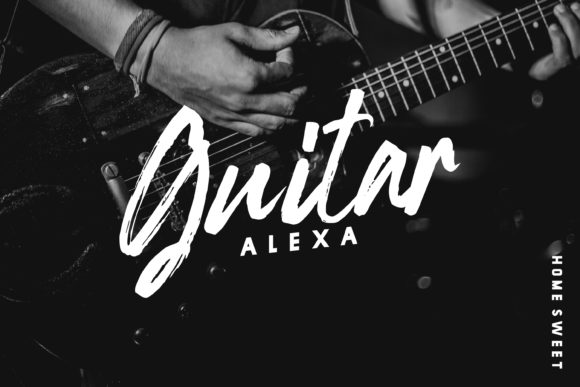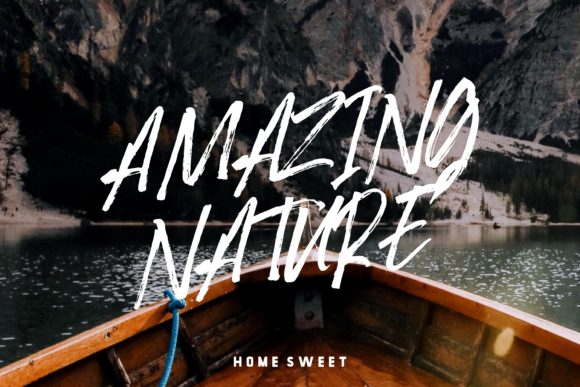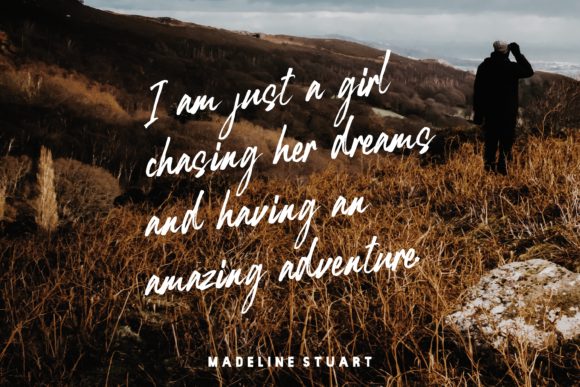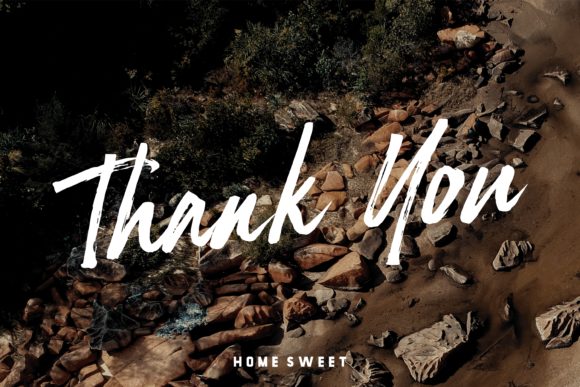
Unleash Your Creativity with the Power of Giant Brush Font
Have you ever been working on a design project and suddenly, the perfect font pops into your mind? It’s like a lightbulb moment – the entire concept clicks, and you can’t wait to bring it to life. For me, that moment happened when I stumbled upon the incredible Giant Brush Font. Its bold, handwritten style added a touch of personality to even the most mundane designs.
Giant Brush Font is a game-changer for designers looking to add a human touch to their work. With its expressive brushstrokes and varied line widths, this font is perfect for creating eye-catching headlines, quotes, or even entire brand identities. Whether you’re a seasoned pro or just starting out, the Giant Brush Font is a valuable addition to any design toolkit.
Giant Brush Font Key Features
- Unique Characteristics: Hand-drawn brush strokes and textured effects give the font a distinctive, organic feel
- Font Weight: Supports multiple font weights, including bold and light options, to add depth and variety to your designs
Giant Brush Font Review
I recently had the chance to work with the Giant Brush Font, and I must say it’s an interesting addition to any design project. Here are my thoughts on what works well and what doesn’t.
- Unique hand-drawn feel: The Giant Brush Font has a distinct, hand-drawn quality that can add a touch of personality to your designs.
- Playful and whimsical: This font is perfect for projects that need a lighthearted and fun tone.
- Good for titles and headings: The font’s bold and playful nature makes it well-suited for use in titles and headings.
- Readability issues: The font’s unique style can sometimes make it difficult to read, especially in larger blocks of text.
- Limited legibility at smaller sizes: The font’s bold lines and playful nature can become hard to read when used at smaller font sizes.
- May not be suitable for formal projects: The Giant Brush Font is best suited for more casual or creative projects, as its playful nature may not be suitable for formal or professional designs.
Overall, the Giant Brush Font is a great addition to any design project that needs a touch of personality and whimsy. While it may have some limitations, it’s a fun and unique font that can add a lot of character to your designs.
Giant Brush Font is perfect for creating eye-catching headings, titles, and captions. It’s also great for adding a personal touch to your designs, such as hand-painted-style text or custom illustrations.
Use Giant Brush Font to create a unique and memorable brand identity, or to add a touch of whimsy to your marketing materials.
What is the supported character set for Giant Brush Font?
Giant Brush Font supports a wide range of characters, including Latin, Cyrillic, and Greek alphabets, as well as various punctuation and special characters. The font also includes a range of ligatures and swashes to enhance its aesthetic appeal.